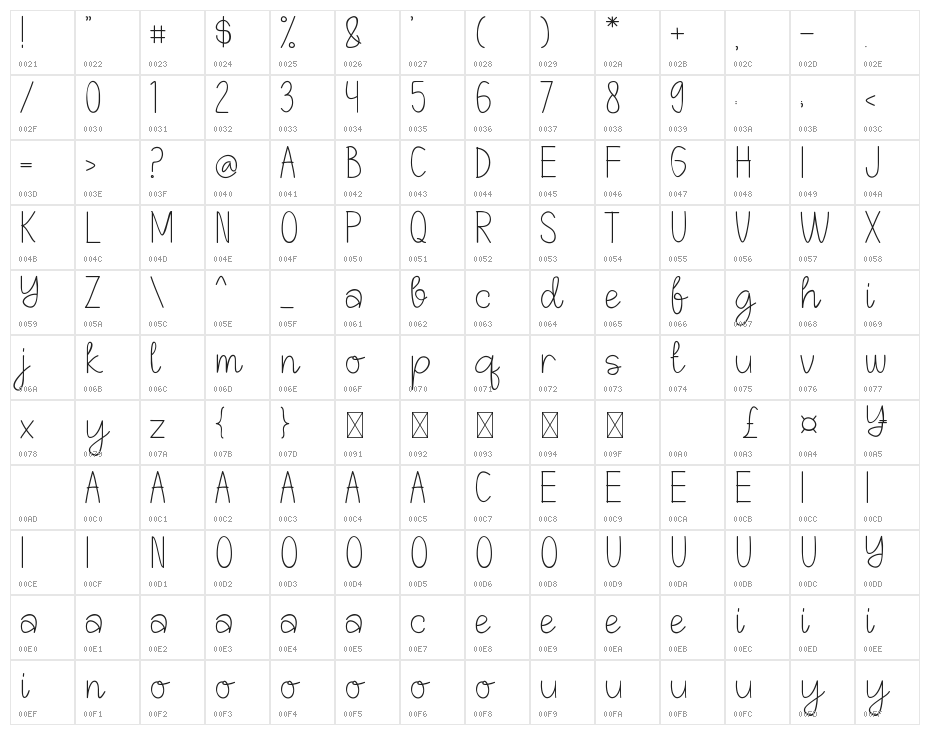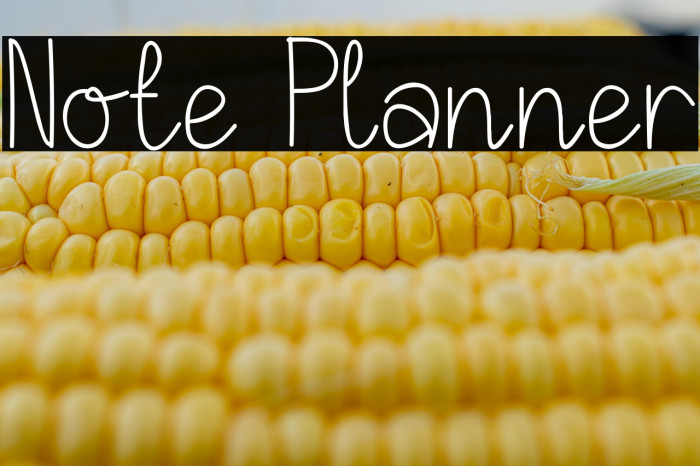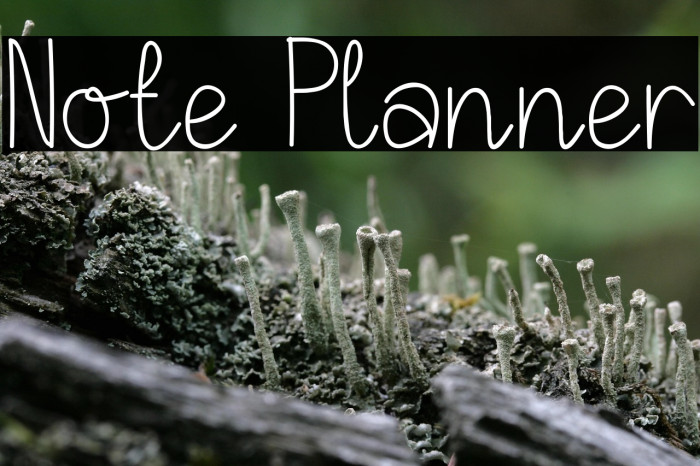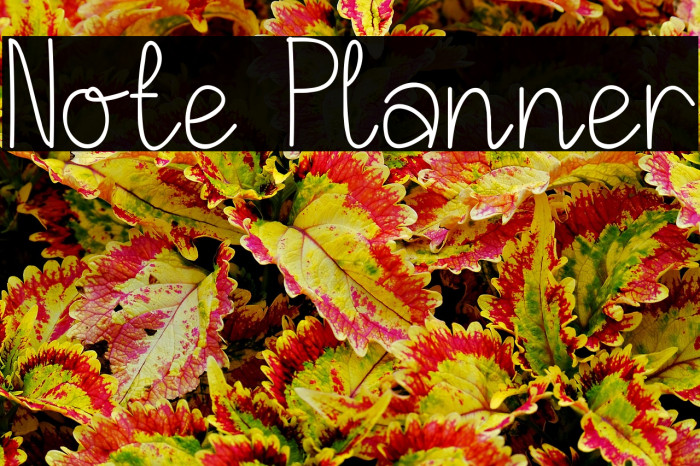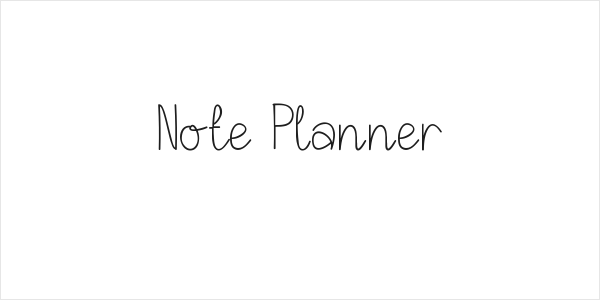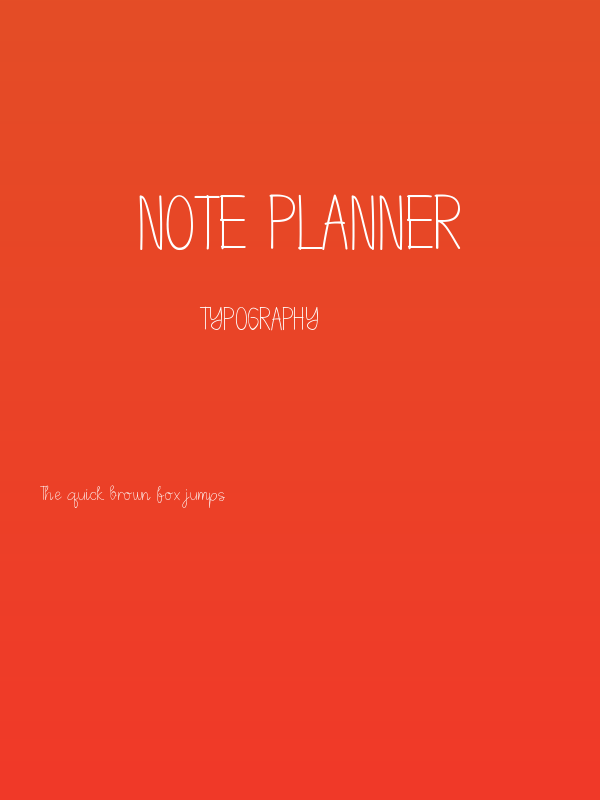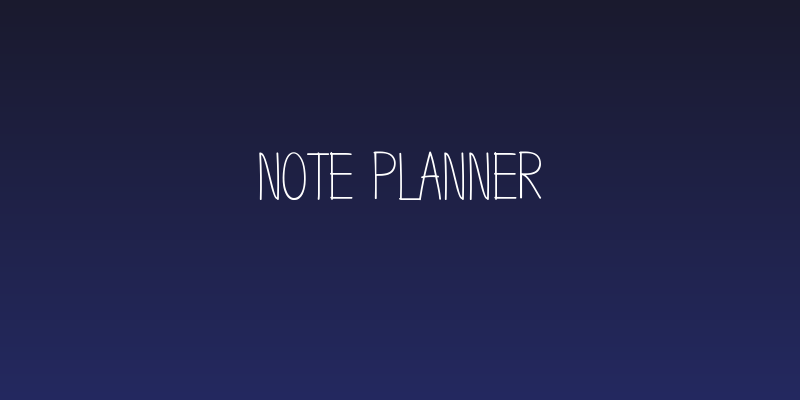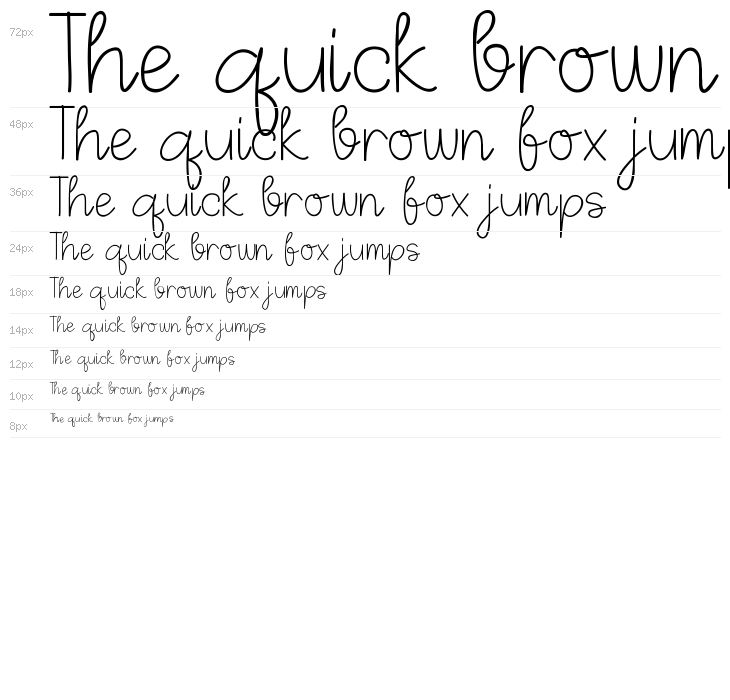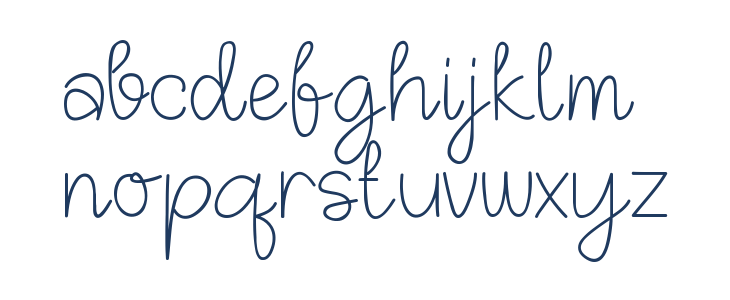
Note Planner Font
Note Planner Description
This font features a playful and casual handwritten style, characterized by its tall and narrow letterforms. The strokes are consistent in width, giving it a clean and uniform appearance. The uppercase letters are slightly taller than the lowercase, with a whimsical touch that adds personality. The numerals are clear and easy to read, maintaining the same playful style. Special characters are well-integrated, complementing the overall design. This font is ideal for projects that require a friendly and approachable aesthetic.
| Width | Condensed |
| Overall Style | Casual |
| Use Case | Headlines, Logos, Informal Text |
| Proposed Projects | Ideal for personal planners, note-taking apps, greeting cards, and children's books. |